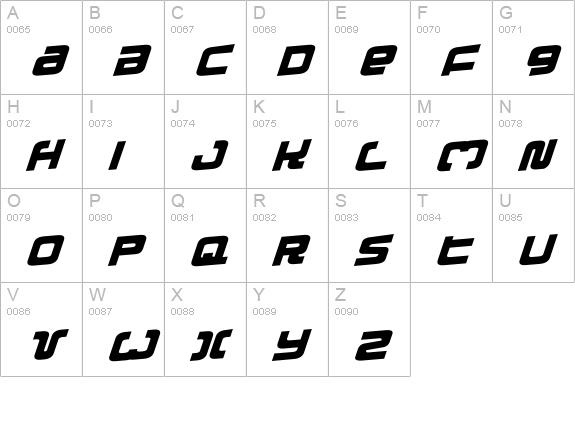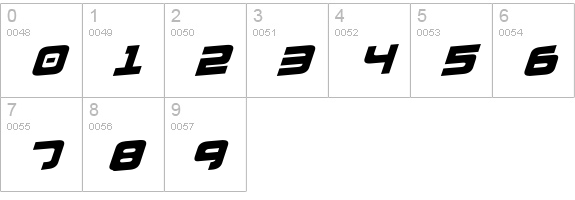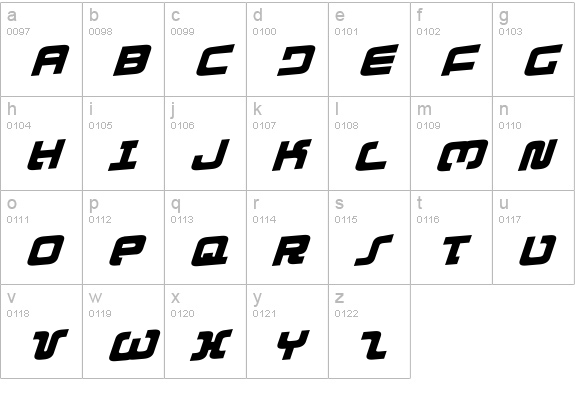
Exedore Rotalic font is a modern and elegant typeface that effortlessly combines sophistication with a touch of playfulness. Its slanted and flowing design exudes a sense of movement and energy, making it perfect for adding a dynamic flair to any project. The unique letterforms of Exedore Rotalic font create a striking visual impact, making it ideal for headlines, logos, and branding materials. But what makes Exedore Rotalic font truly stand out is that it is available for free download at FontsMarket.com. This means that you can easily access this stunning typeface without any cost, allowing you to elevate your designs without breaking the bank. Whether you're a professional designer looking for a fresh font to add to your collection or a hobbyist seeking to enhance your creative projects, Exedore Rotalic font is a versatile and eye-catching choice that won't disappoint. Don't miss out on the opportunity to enhance your designs with this stylish and contemporary font - download Exedore Rotalic today and let your creativity soar.